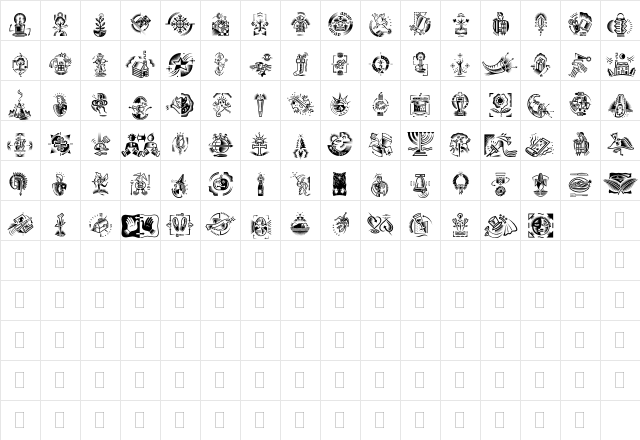
Complete DF Celebrations Plain glyph index. Displaying only characters natively supported by DF Celebrations Plain font.
DF Celebrations is a composed and adaptable typeface that performs quietly and consistently across a wide range of design contexts.